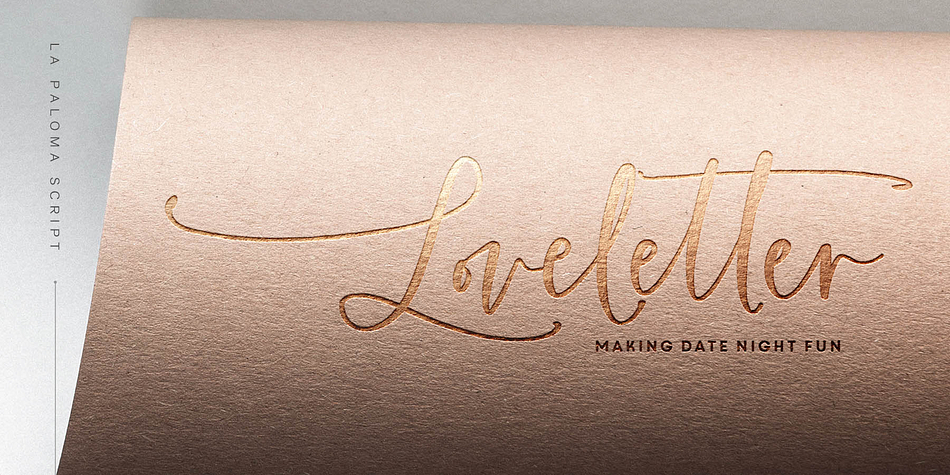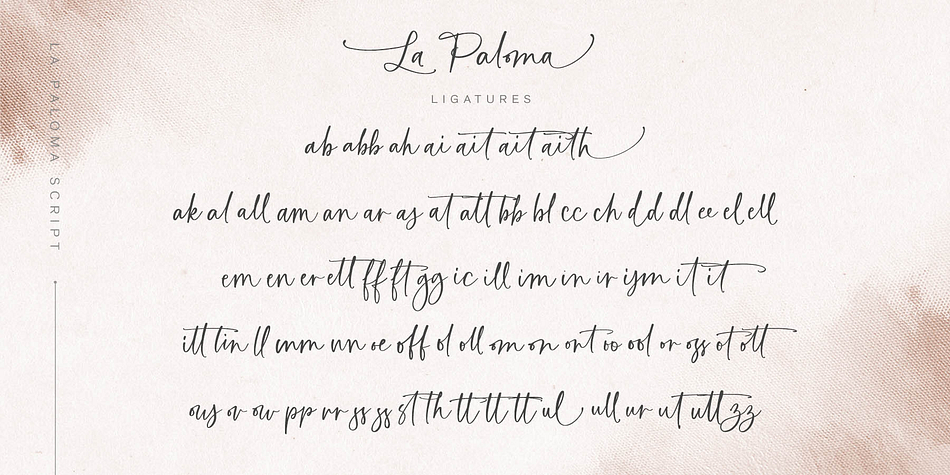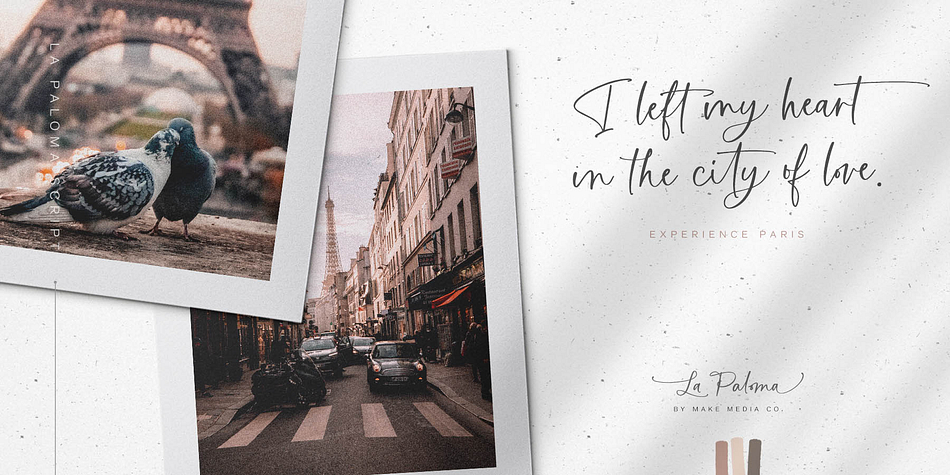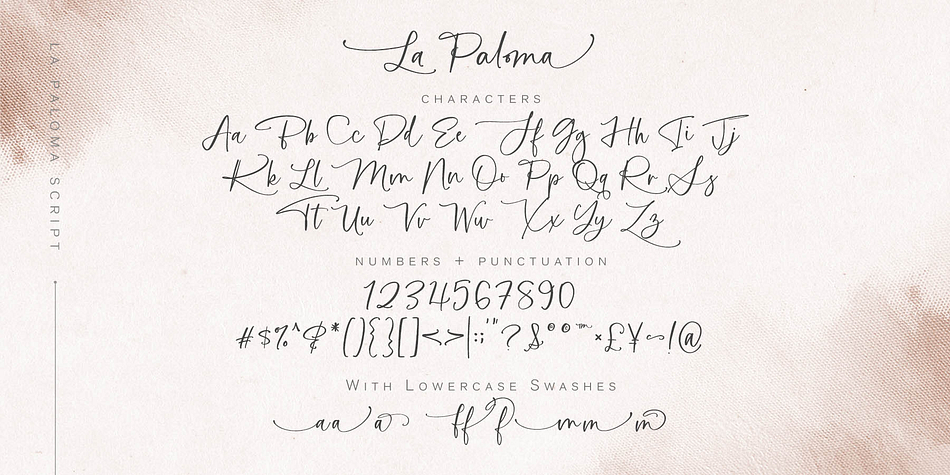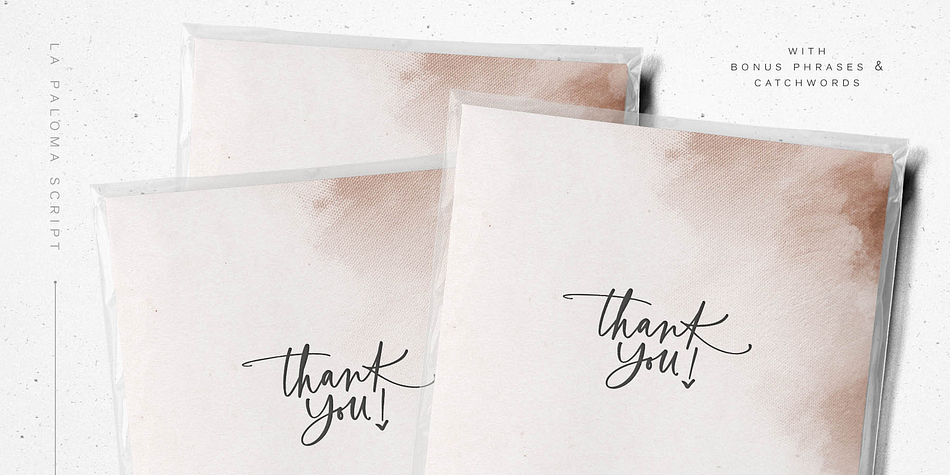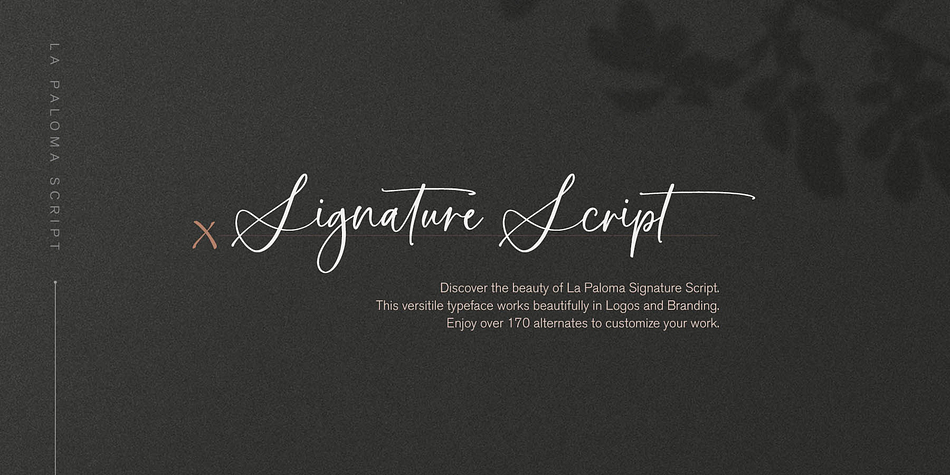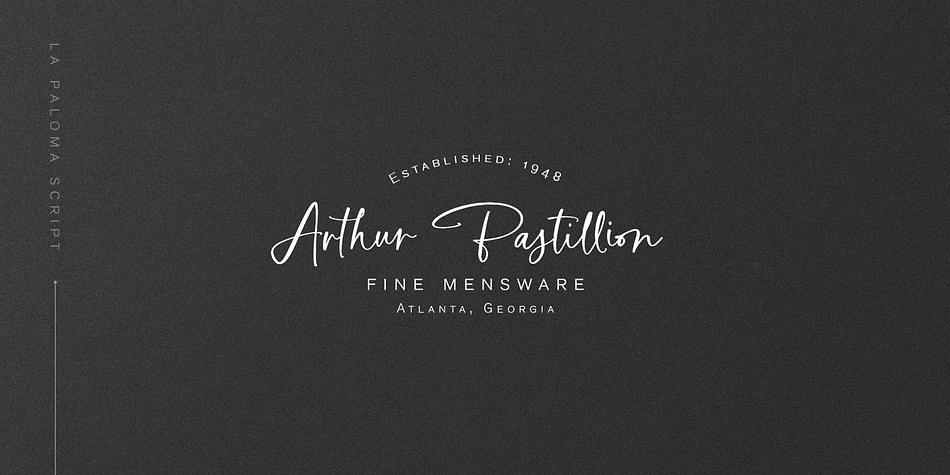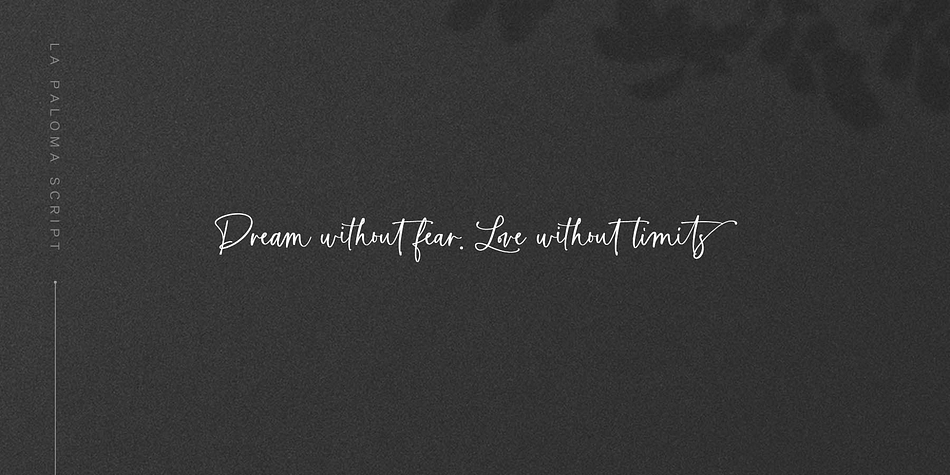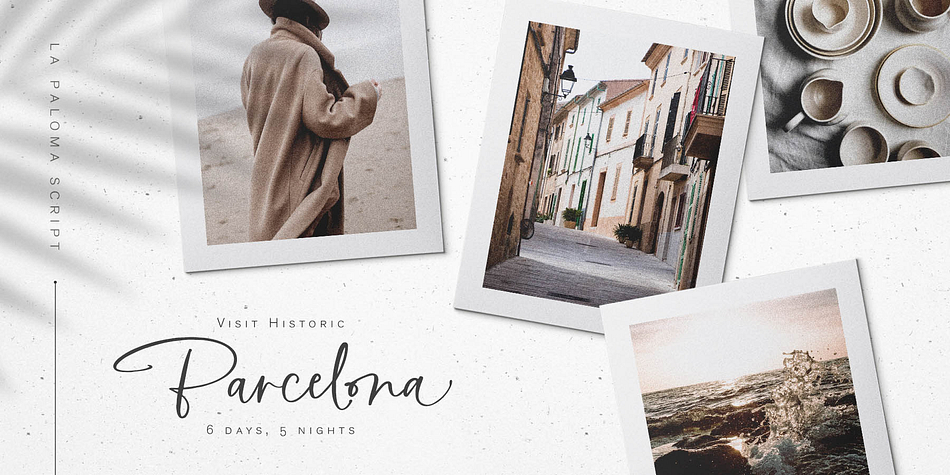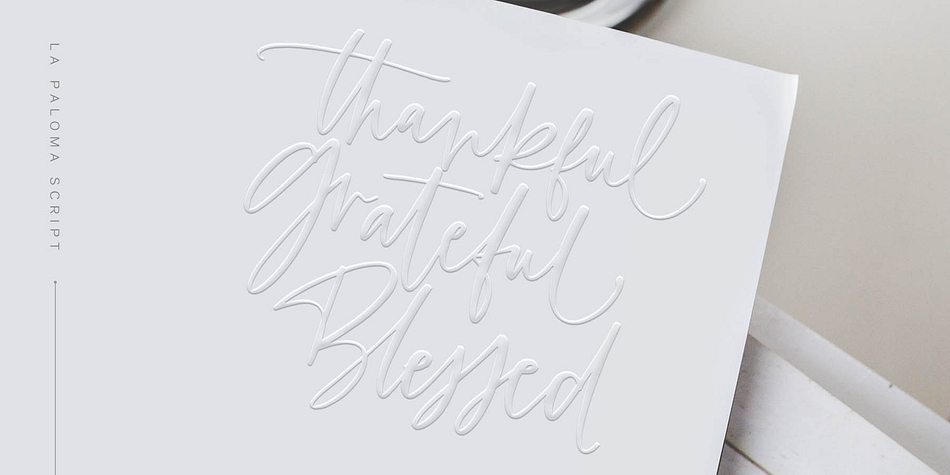
Designed by Callie Hegstrom, La Paloma Script is a modern calligraphy, script and dingbat font family. This typeface has three styles and was published by MakeMediaCo.
Add a touch of elegance to your work with La Paloma Script - A clean, modern, hand-written typeface with over 170 Ligatures and Decorative End Characters to add a dash of luxury to any project.
If you’re looking for the perfect logo font, you just found it! La Paloma was designed with Branding in mind! But don’t stop there, use this chic type in headlines & titles, signage, greeting cards & invitations.
• La Paloma Script - An elegant typeface with over 190 alternates and extras.
• La Paloma Slanted - An italic version of La Paloma Script.
• La Paloma Extras - 79 Catchwords, Phrases & Florals.